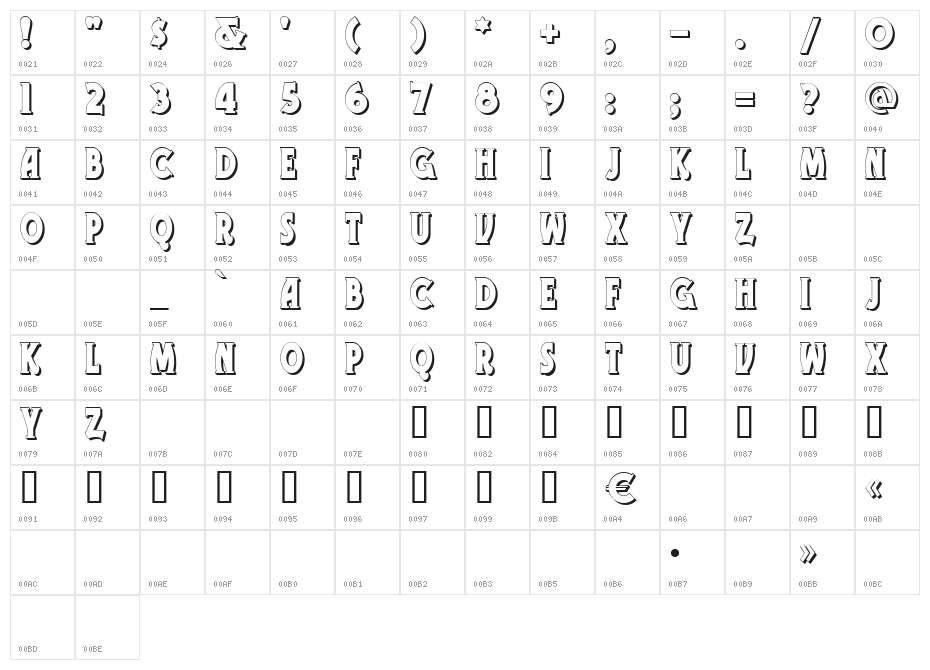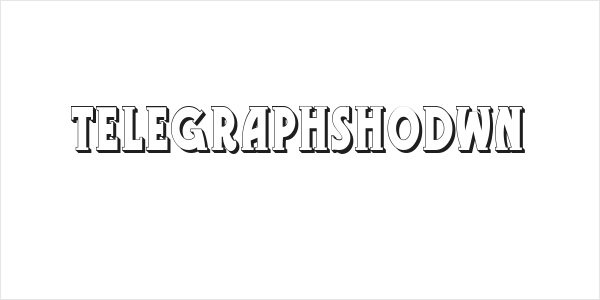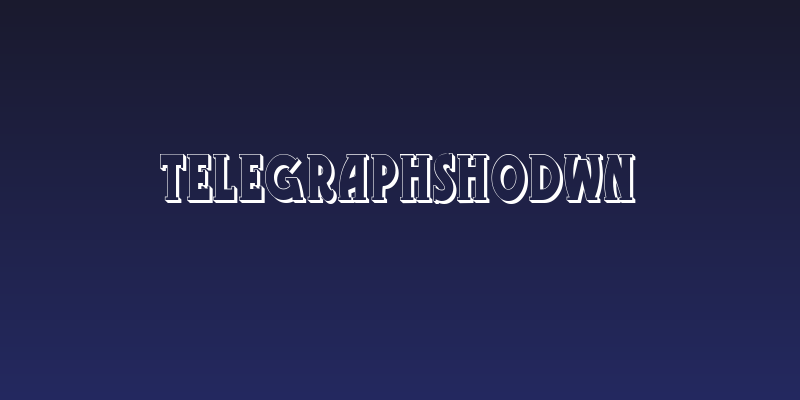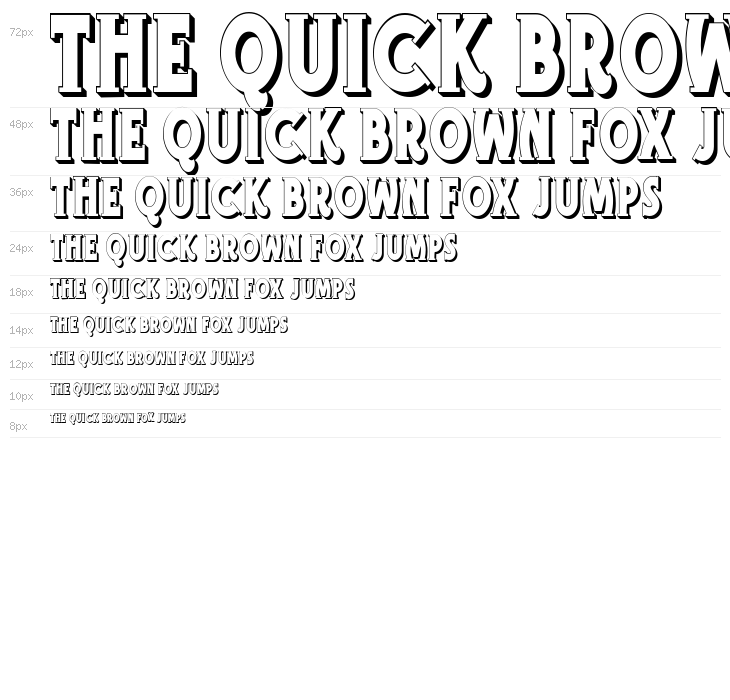
TelegraphShodwn Font
TelegraphShodwn Description
This font features bold, three-dimensional characters with a strong, impactful presence. The letters are outlined with a shadow effect that gives them a distinct, eye-catching look. The uppercase and lowercase letters maintain a consistent style, with sharp edges and a slight vintage flair. The numerals and special characters follow the same design principles, ensuring uniformity across all glyphs. This font's unique style makes it suitable for projects that require a bold statement or a retro aesthetic.
| Proposed Projects | Ideal for posters, logos, headlines, and any design needing a bold, retro touch. |